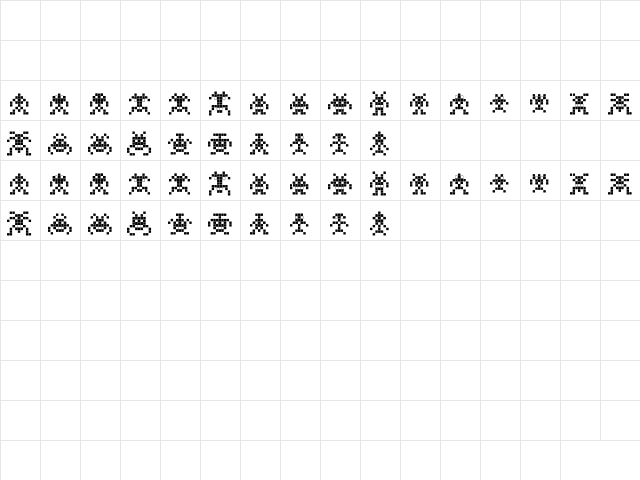
Binary SoldiersIII Regular
Design Context for Binary SoldiersIII Typeface
Binary SoldiersIII draws on military and industrial lettering traditions, with forms that communicate strength and precision.
Designed for tactical branding, military-inspired apparel, action game UI, and utility-focused signage.
Pro Tip: Use Binary SoldiersIII at medium-to-large sizes where its utilitarian structure can be appreciated — the character detail gets lost at small sizes.